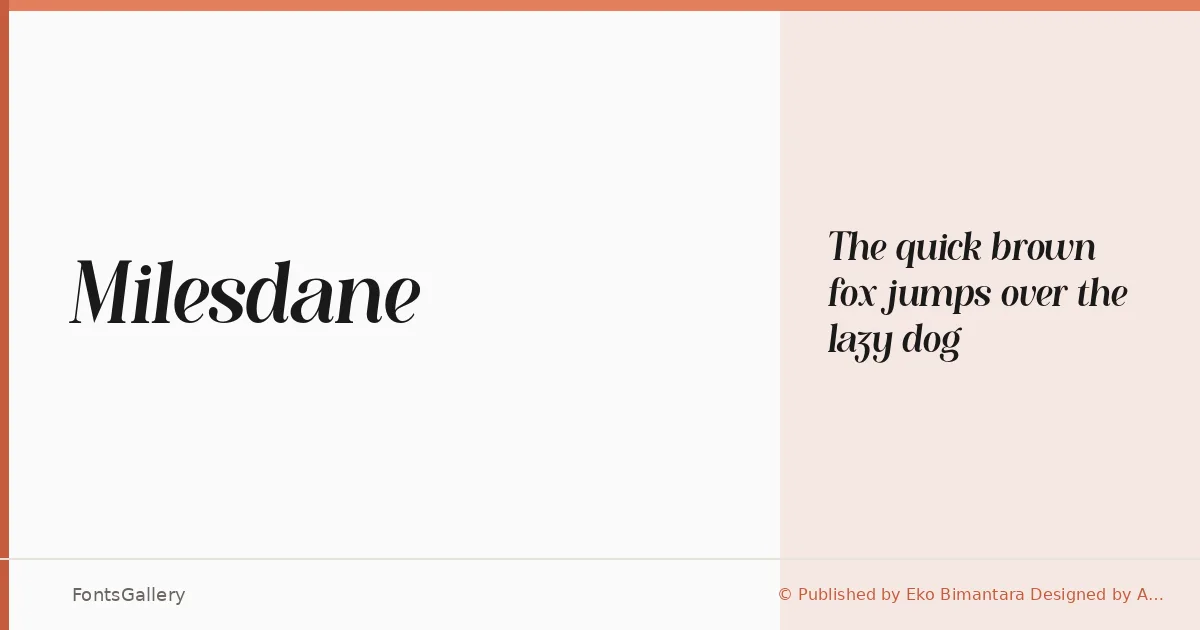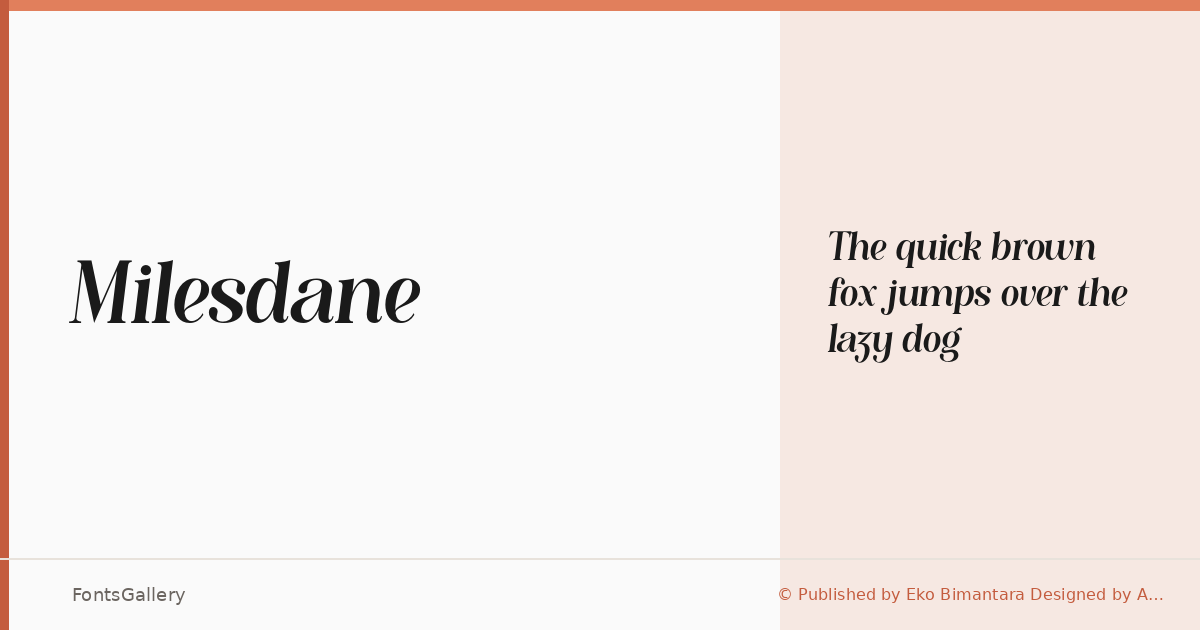
About Milesdane Font
There is a particular composure to this serif — the kind of quiet confidence you find in type designed for covers and identities rather than running text. Published by Eko Bimantara and designed by Arief Setiawan, Milesdane arrives as a single Regular weight in OTF format, its Latin letterforms shaped around a sensibility that leans classical without retreating from contemporary proportion.
The mood here sits at the intersection of luxury and restraint — classic in its serif structure, modern in the way its forms hold negative space. With one carefully resolved style rather than a sprawling range, the design asks to be used deliberately. The elegance is built into the details: the kind of cut that rewards close inspection on a book jacket or a logotype lockup.
The face is well suited to branding work, logo design, magazine editorial, wedding stationery, and book cover composition — anywhere Latin-script display type needs to carry a sense of occasion. It pairs naturally with the clean geometry of Helvetica or Josefin Sans, holds its own alongside the more approachable warmth of Asap, and can be set against the distinct personalities of Armelie or Kactigona when contrast is the goal.